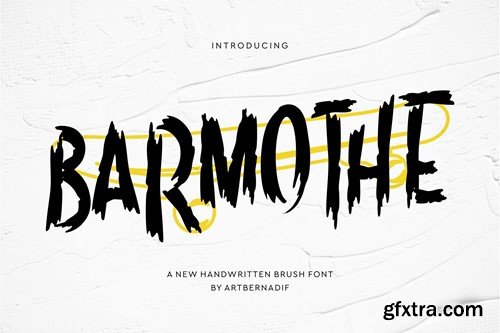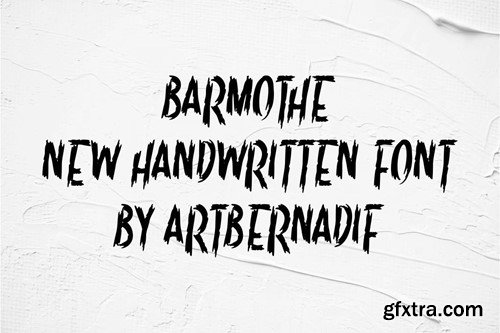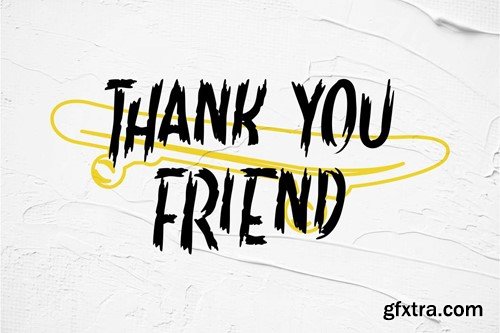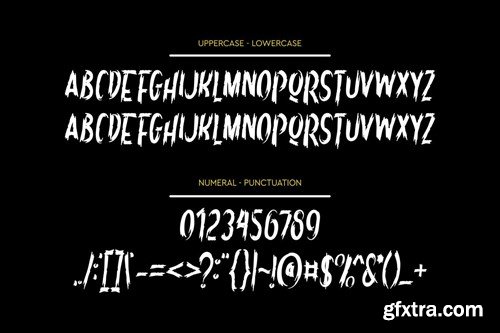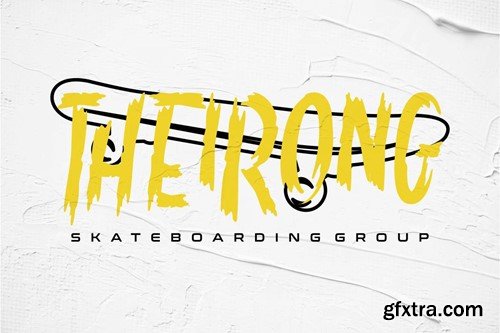
Barmothe Font
Introducing our new product Barmothe Font - Modern Font Barmothe Font- Modern Font is a bold and authentic display font. The font is suitable for any branding project like logo, t-shirt printing, esport, and many more. outstanding in a wide range of contexts. availlable